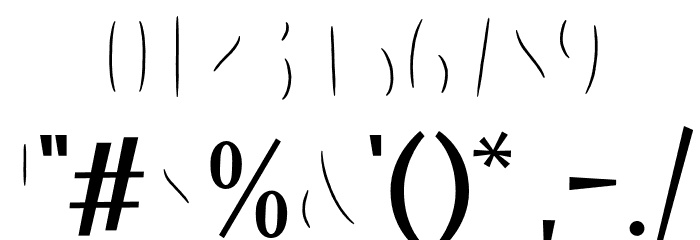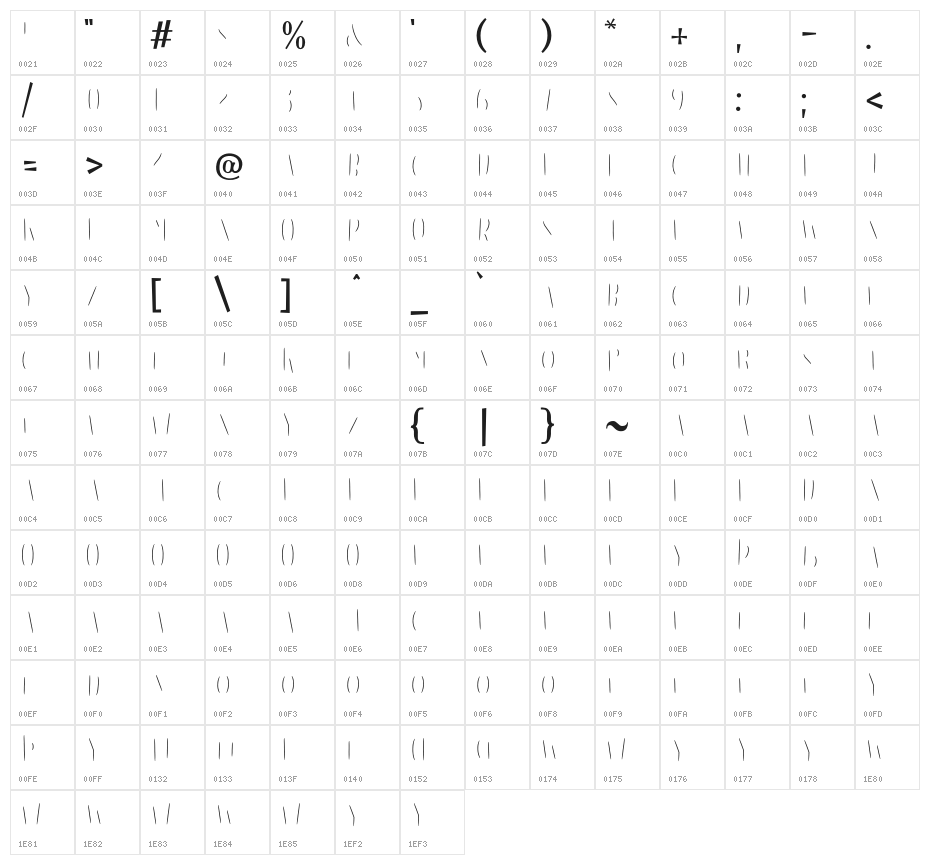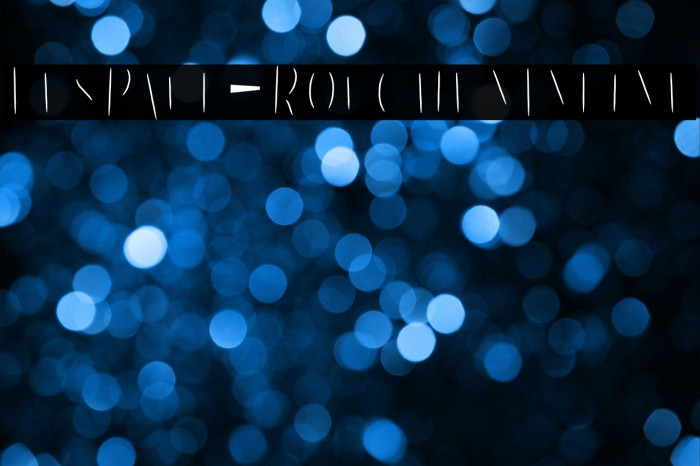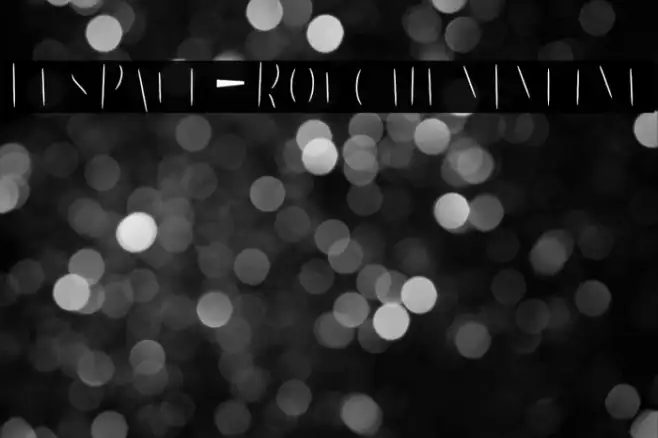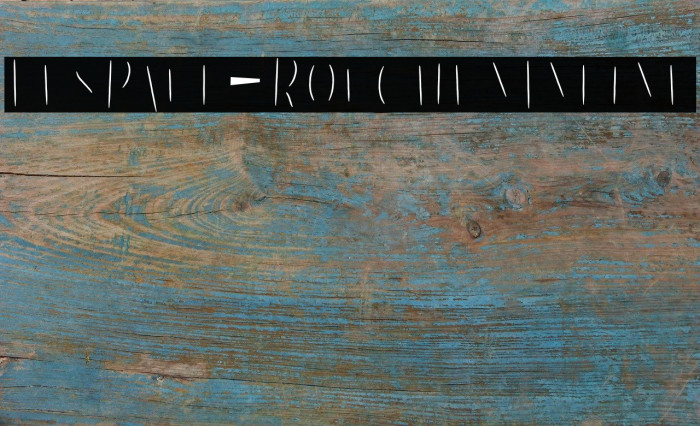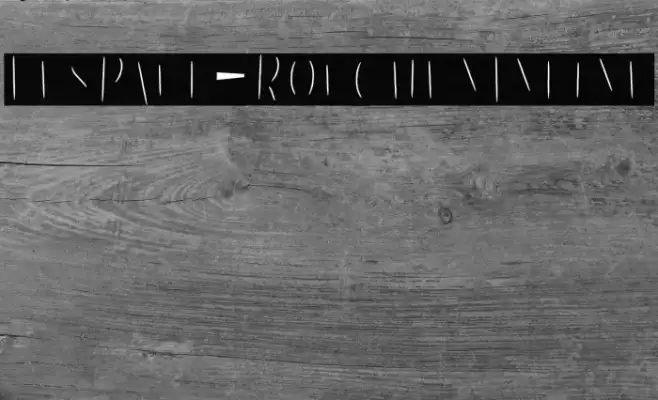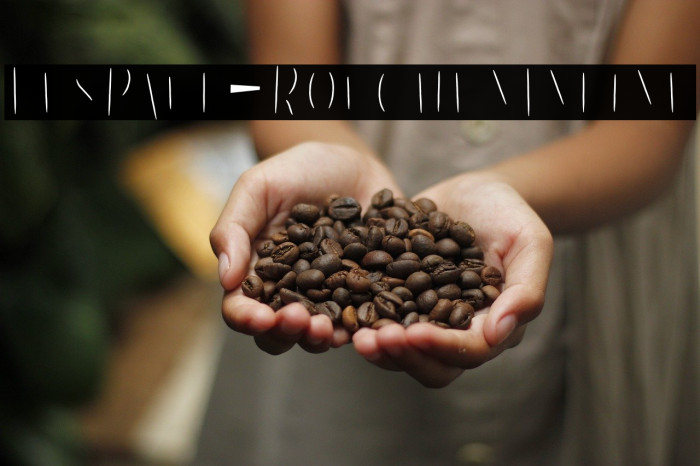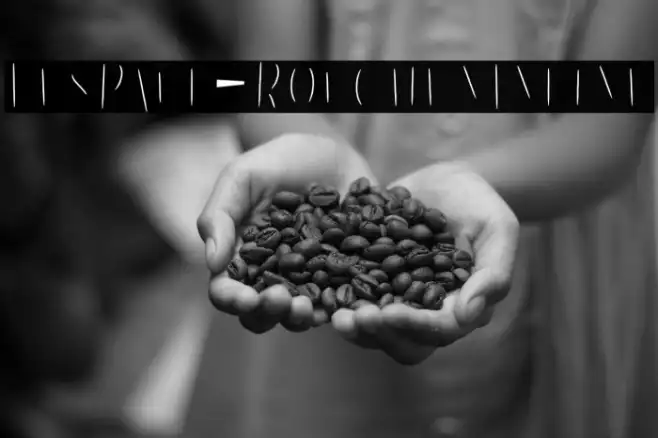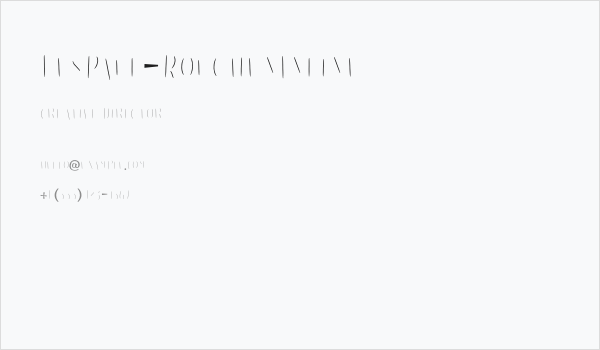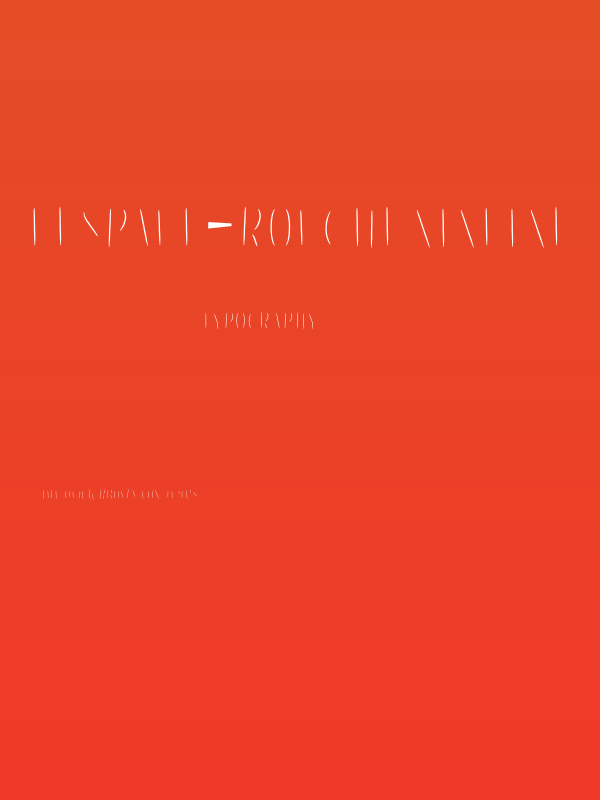
LesPaul-RoughenInline Font
LesPaul-RoughenInline Description
This font features a unique and artistic design with a rough, hand-drawn appearance. The letters are elongated and narrow, with a distinct inline style that gives them a dynamic and edgy look. The strokes are irregular, adding a sense of movement and energy. The uppercase and lowercase letters maintain a consistent style, while the numbers and special characters complement the overall aesthetic. This font is ideal for projects that require a bold and unconventional look, making it suitable for creative and artistic endeavors.
| Proposed Projects | Ideal for album covers, posters, artistic branding, and creative digital content. |